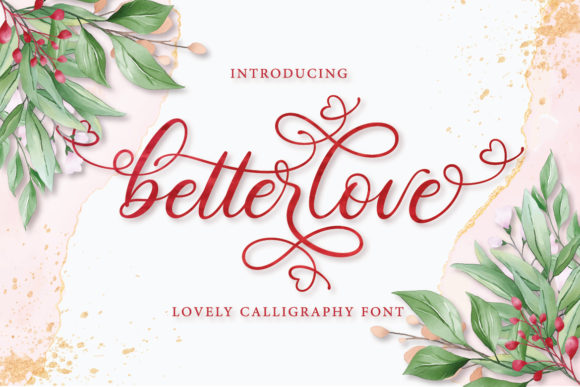
The Quest for the Perfect Font: Discovering Betterlove
I’ll never forget the time I was working on a wedding invitation project, and my client asked for a font that was both elegant and playful. I scoured the internet, tried countless fonts, but nothing seemed to fit the bill. That was until I stumbled upon Betterlove, a lovely calligraphy font that has since become a staple in my design toolkit.
A First Impression of Betterlove
At first glance, Betterlove is a stunning calligraphy font with an incredibly luxurious feel. Its natural handwriting makes it perfect for a variety of design projects, from logotypes and wedding invitations to Valentine’s Day designs and crafting. The font is PUA encoded, which means you can easily access all the beautiful glyphs and swashes.
What I Love About Betterlove
- ✨ Luxurious and elegant feel, perfect for high-end designs
- ✅ Natural handwriting style that adds a personal touch
- 🎉 PUA encoded for easy access to glyphs and swashes
- 💻 Features alternate glyphs and ligatures for added versatility
While Betterlove is an amazing font, there are a few things to keep in mind:
- 🤔 Some users may find the font a bit too ornate for certain projects
- ⚠️ May not be suitable for body text due to its decorative nature
The Story Behind Betterlove
Betterlove was designed with the intention of creating a font that exudes luxury and sophistication. The designer aimed to craft a font that would be perfect for special occasions, such as weddings and Valentine’s Day. With its natural handwriting style and elegant feel, Betterlove has become a popular choice among designers and crafters.
Q: Is Betterlove suitable for body text?
A: While Betterlove is a beautiful font, it’s not ideal for body text due to its decorative nature. It’s best used for headings, titles, and short text passages.